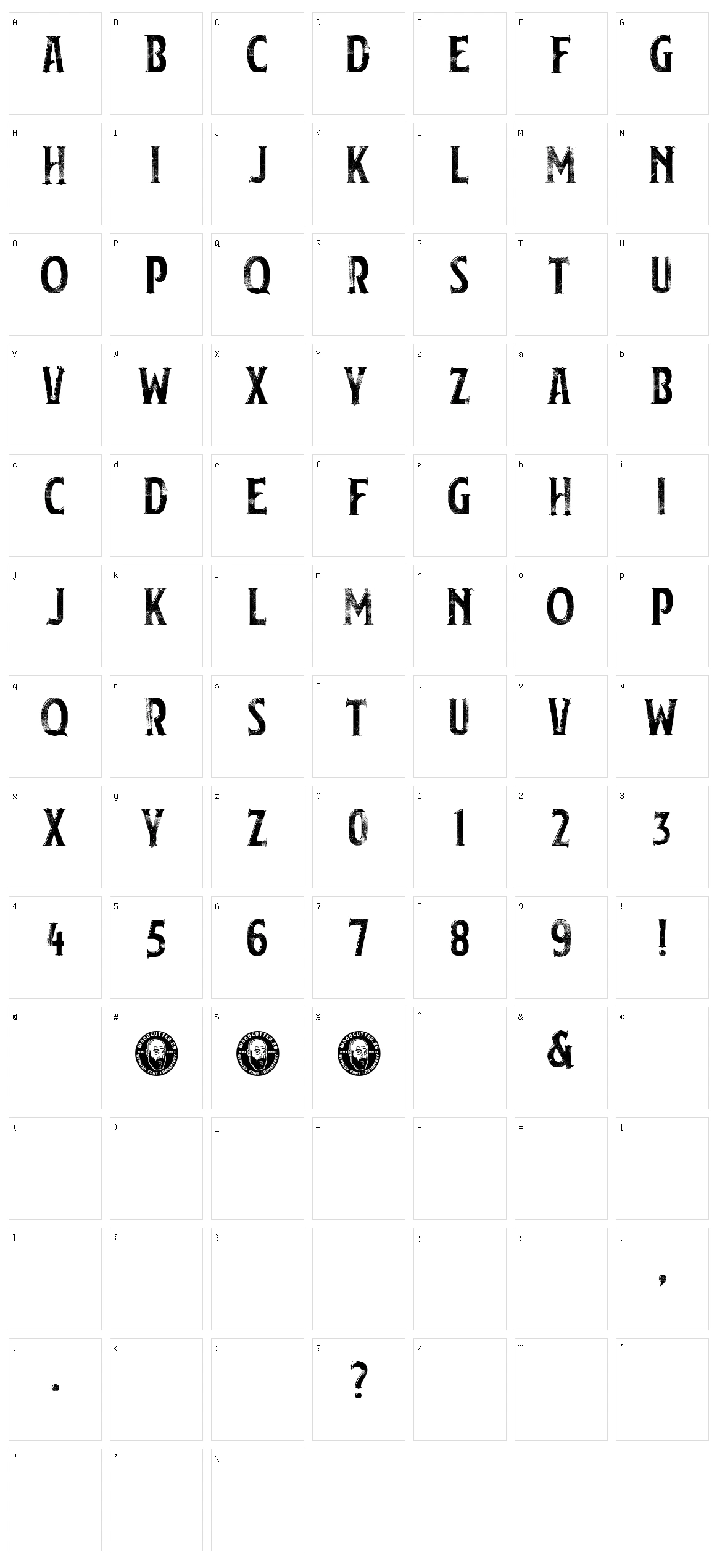
The free font Trapeze Artist is carefully designed by Woodcutter, showcasing a thoughtful balance of creativity and usability and falls under the Eroded font style. When you download the ZIP file, it contains only 422.04 KB of font files, making it lightweight and quick to download. Please review the license details below to understand permitted usage and distribution rights. If license information is not available, we recommend using this font for personal projects only or contacting the author directly for commercial usage permissions.